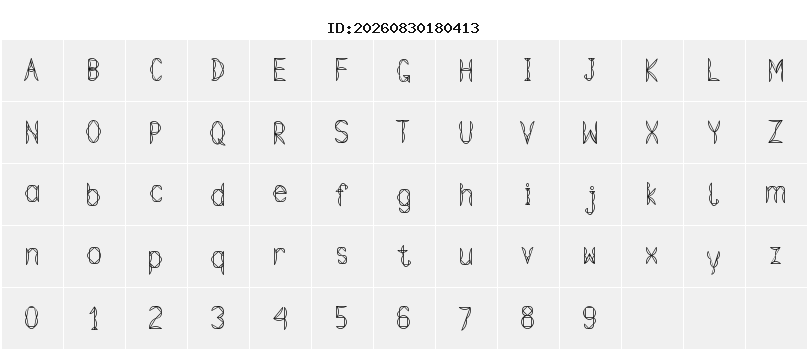
• Font Name: Tetraclericton
• Designer: Clerical Office Lab-room of Vlad Viperov aka viper78
• Description: Standart decorative font for use in all places.
About Tetraclericton.ttf
Tetraclericton.ttf is a modern, elegant sans-serif font designed for ultimate readability and visual harmony. Perfect for branding, headlines, web design, and print materials.